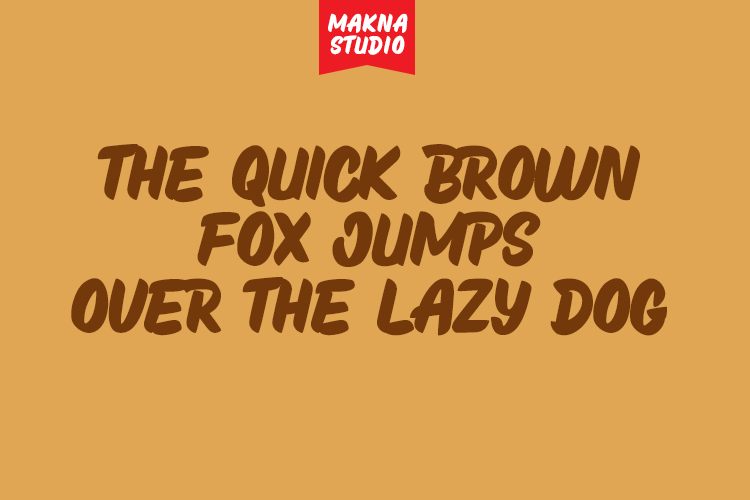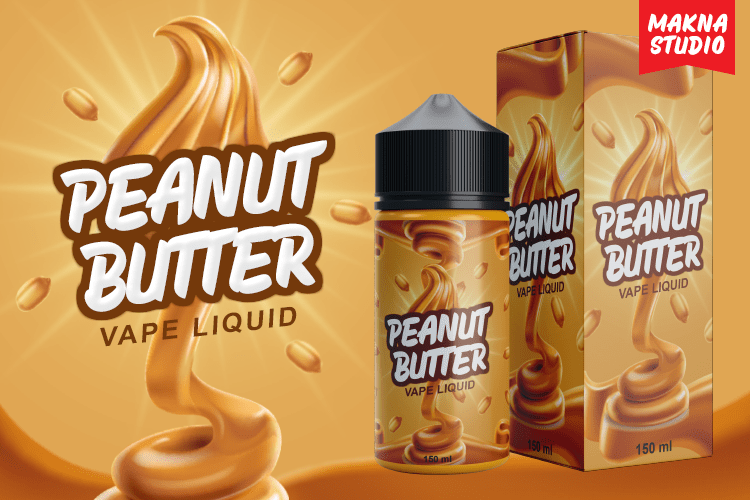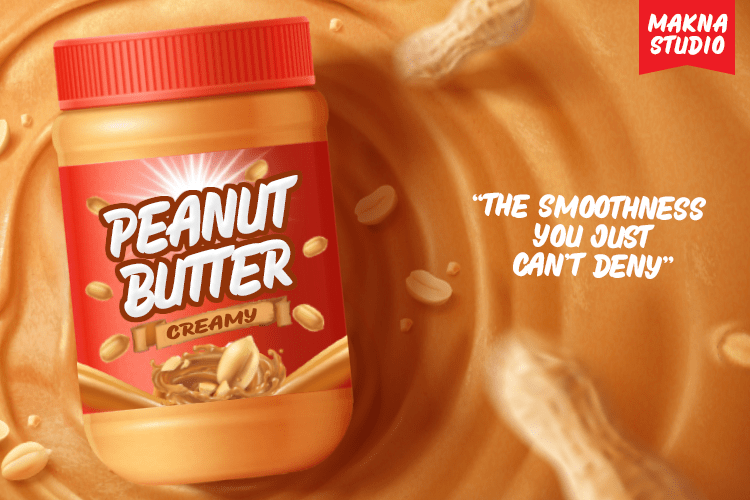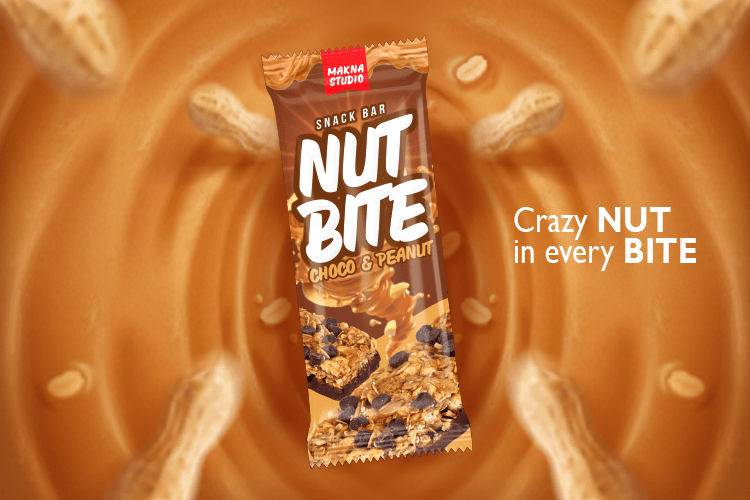
Peanut Butter Font
Peanut Butter display font is a brush font with bold and good shape. Really match to make an iconic word mark Logo , Product Logo, Poster movie, games, and many more.